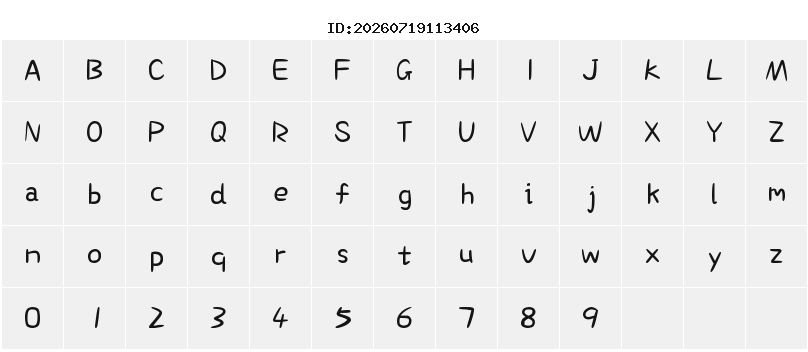
也字工厂可爱拼音体 Preview
• Font Name: 也字工厂可爱拼音体
• Manufacturer: 也字工厂
也字工厂可爱拼音体.ttf is a modern, elegant sans-serif font designed for ultimate readability and visual harmony. Perfect for branding, headlines, web design, and print materials.